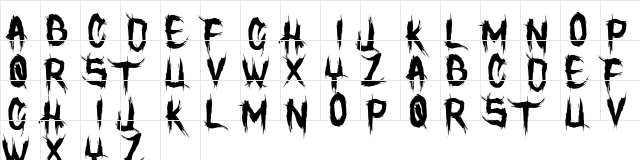
Ode To Murder Regular
| Foundry | Font Monger & Chris Vile Fonts |
| Designer | Font Monger & Chris Vile Fonts |
Design Context for Ode To Murder Typeface
Ode To Murder is a composed and adaptable typeface that performs quietly and consistently across a wide range of design contexts.